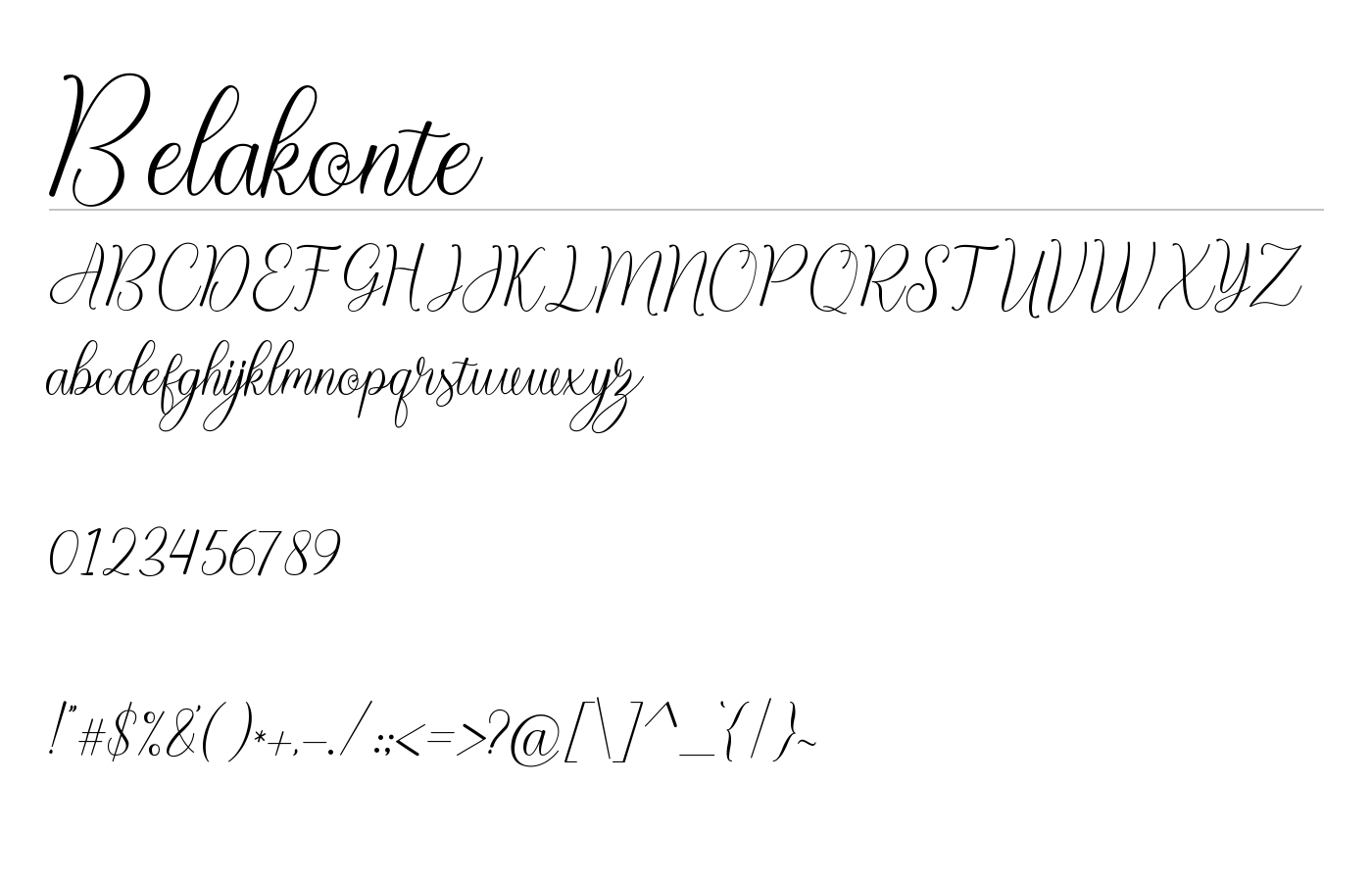
Belakonte is an elegant script font characterized by its delicate, flowing strokes and high contrast between thin and thick lines, giving it a graceful, refined appearance. Its tall, narrow letterforms with fluid, handwritten details make it ideal for sophisticated branding, invitations, and fashion or luxury projects where a stylish, classic touch is desired. This font excels in display uses such as logos and headlines, adding a sense of charm and sophistication to any design.
Belakonte Font
About Belakonte Font
| Designer | Fatoni Nurman |